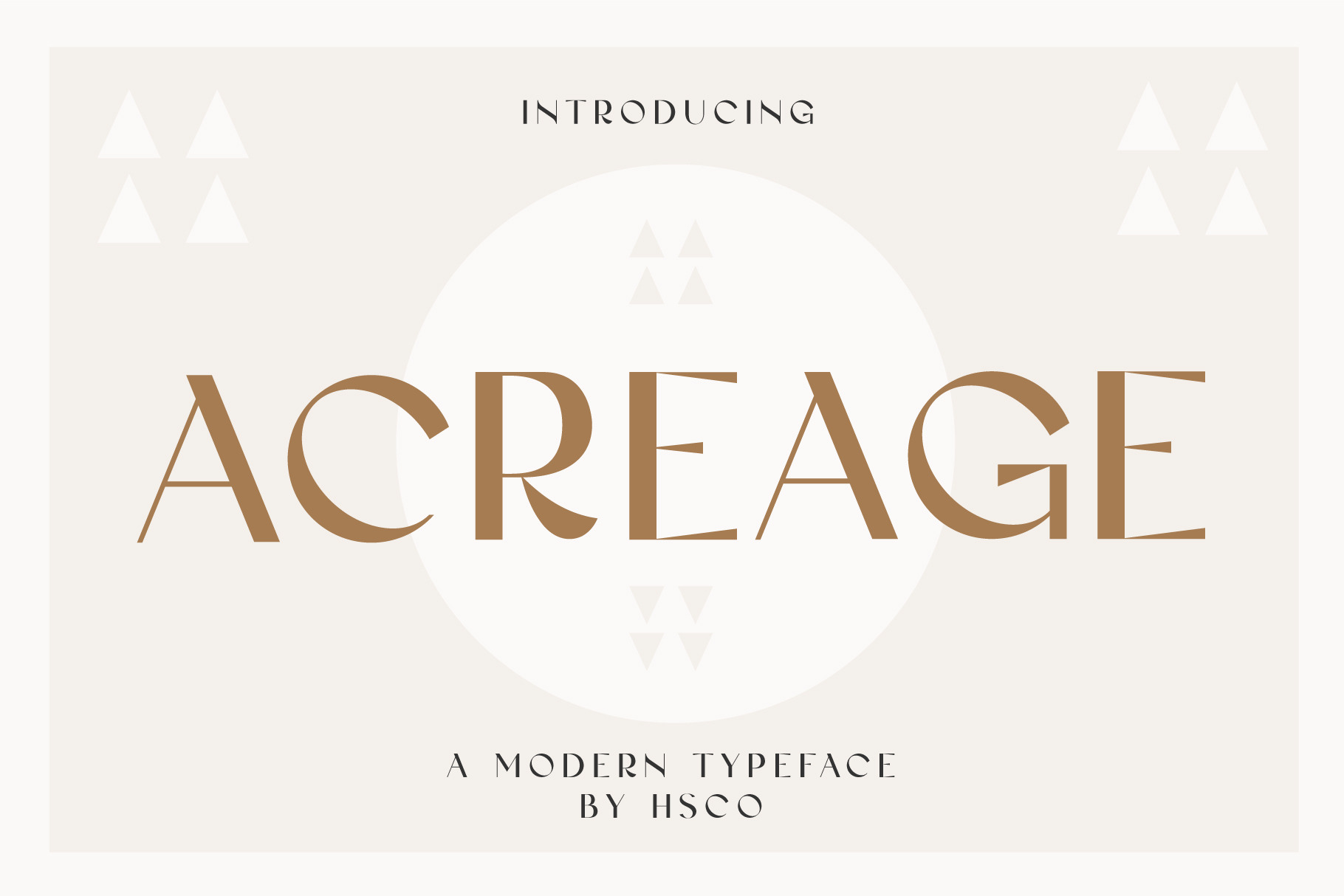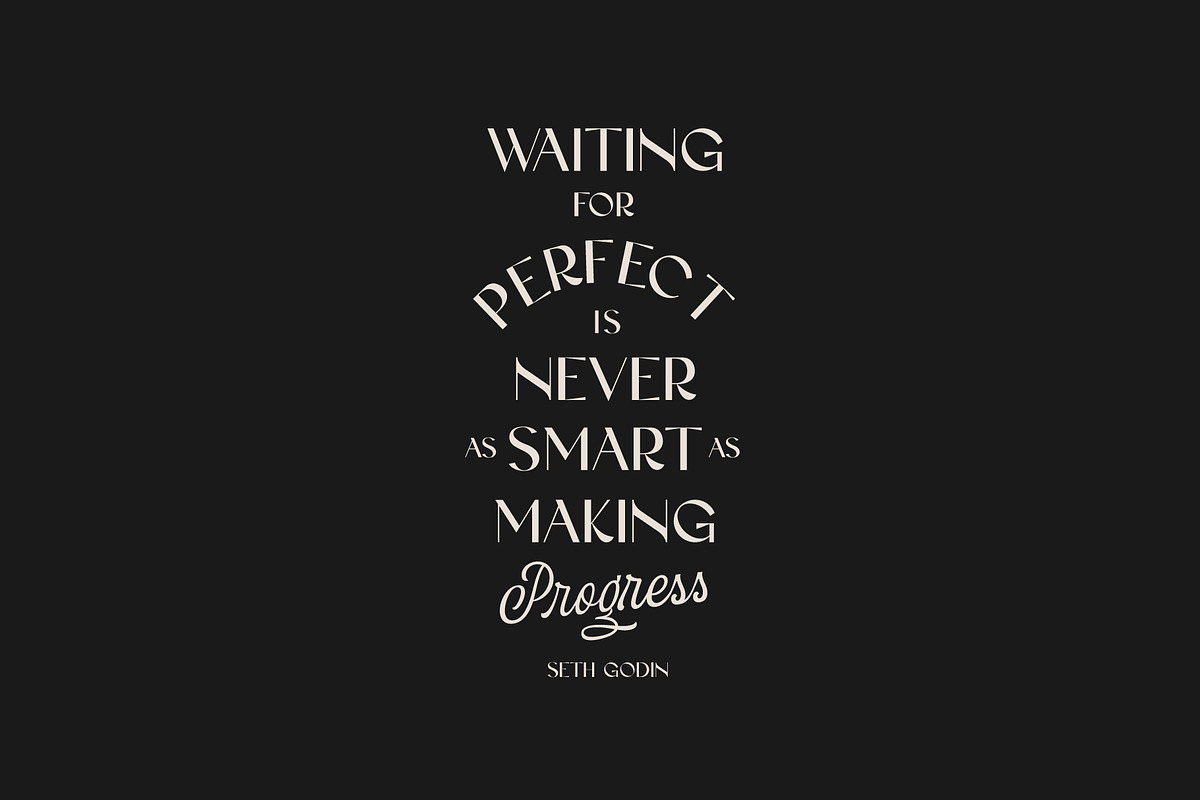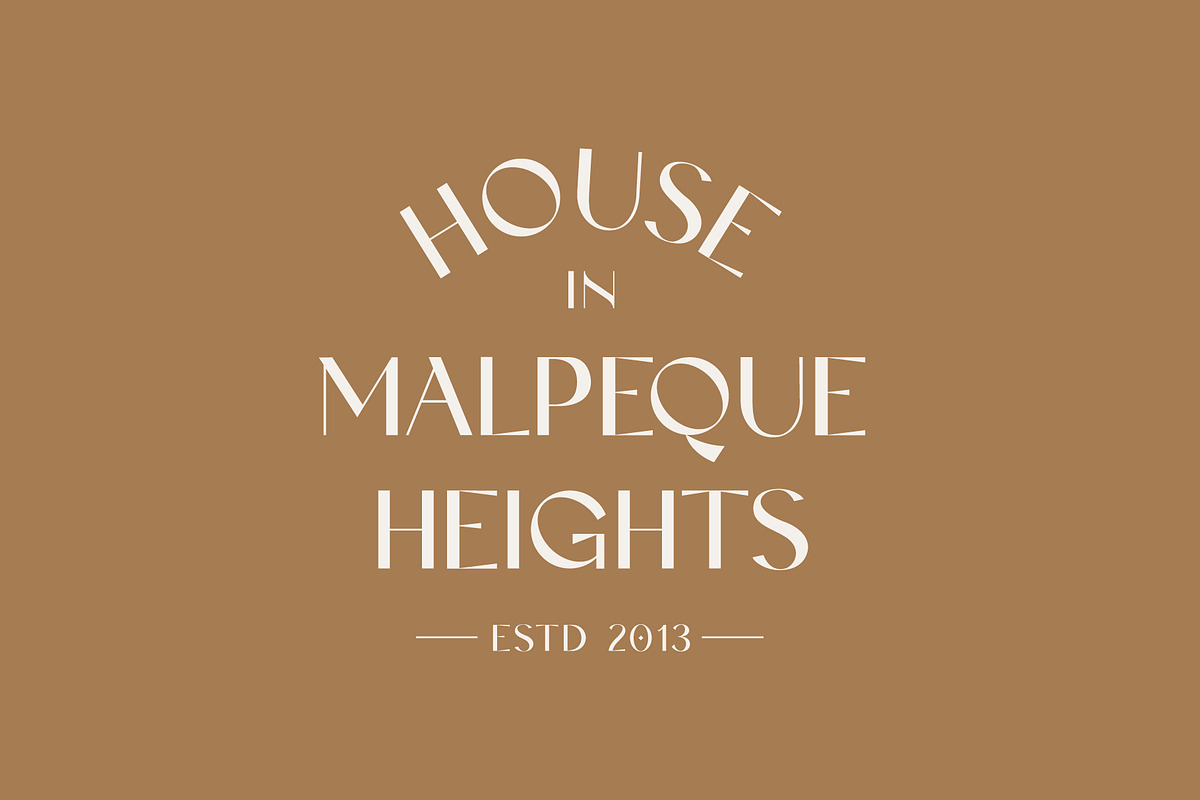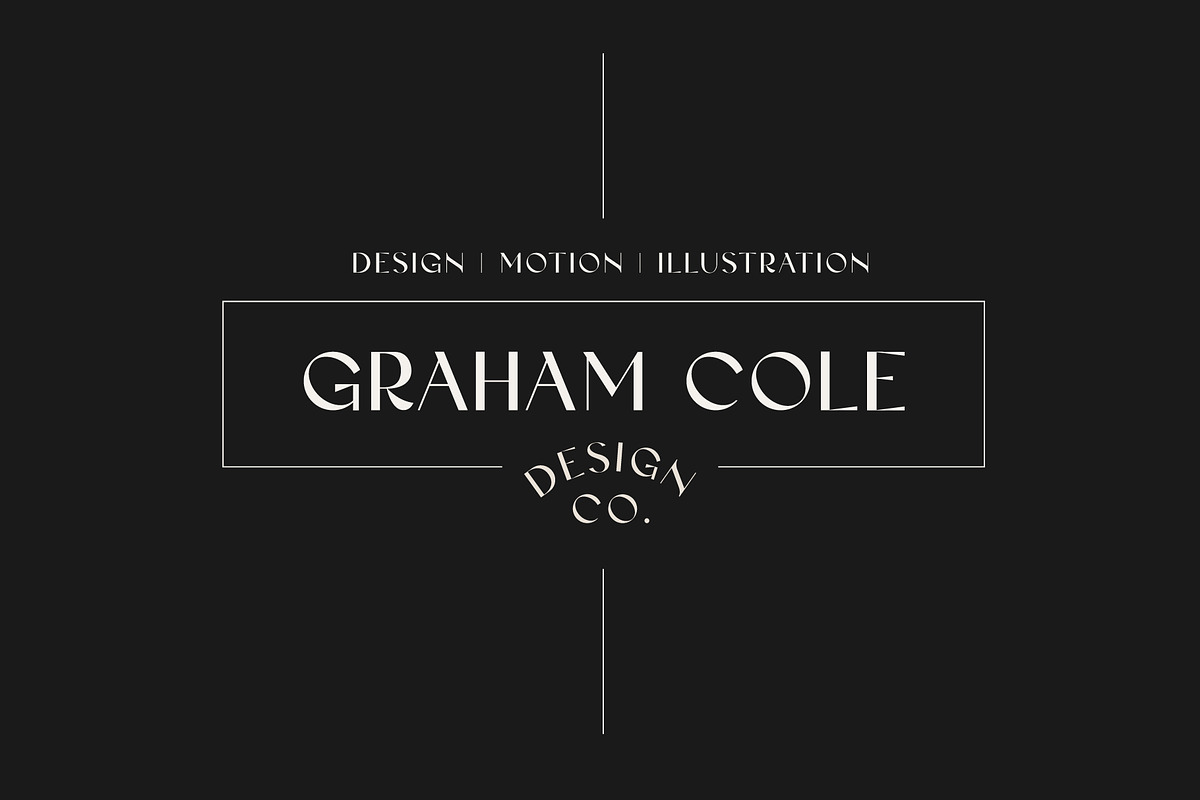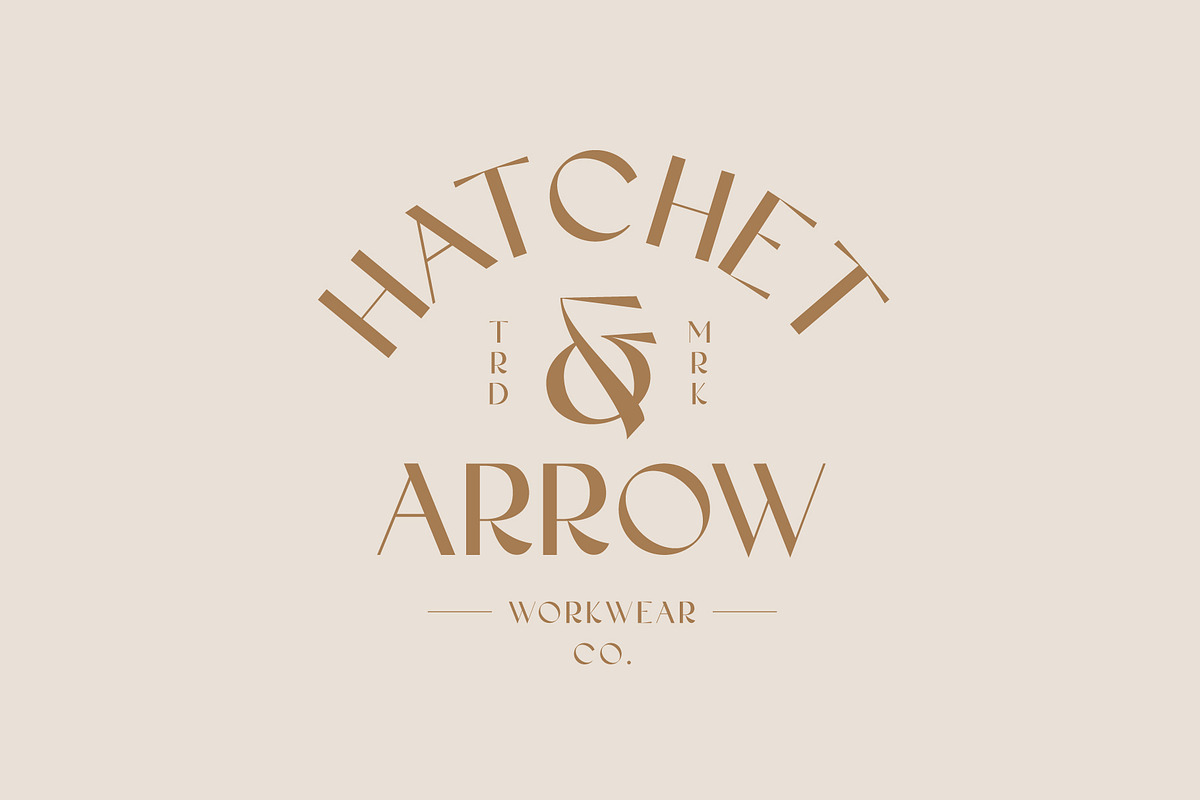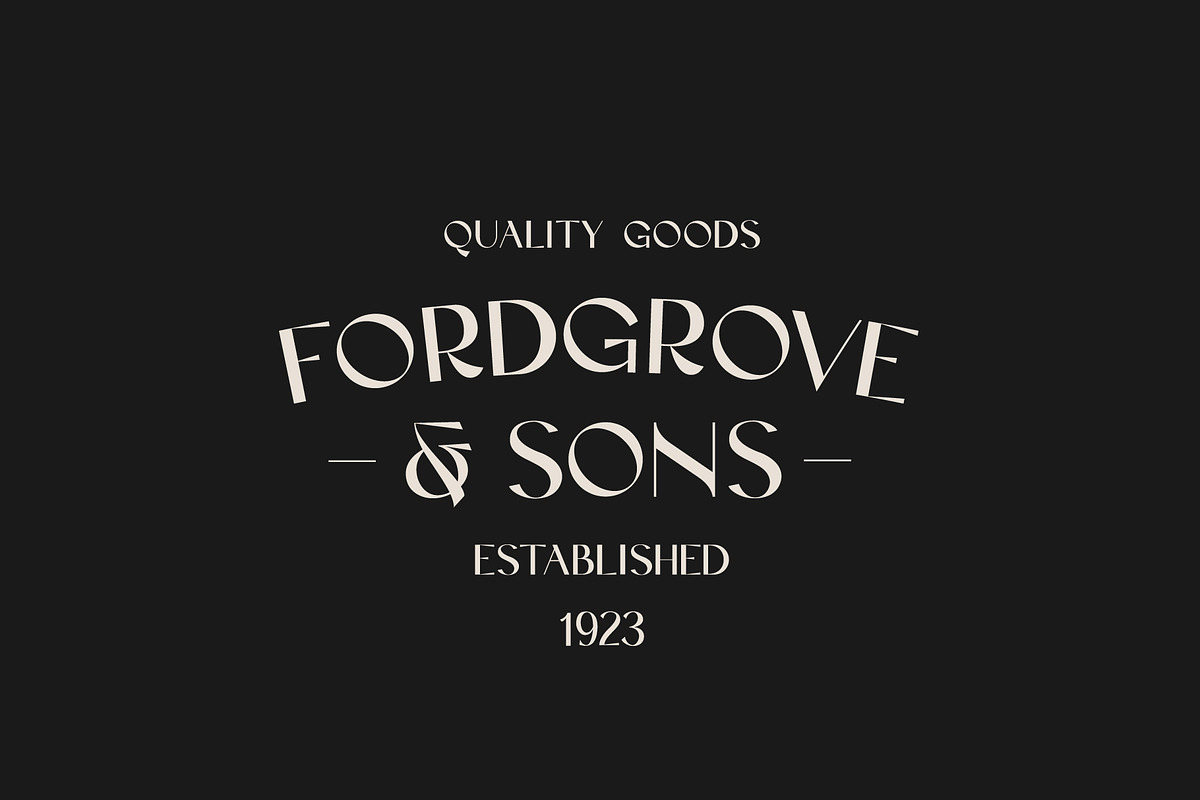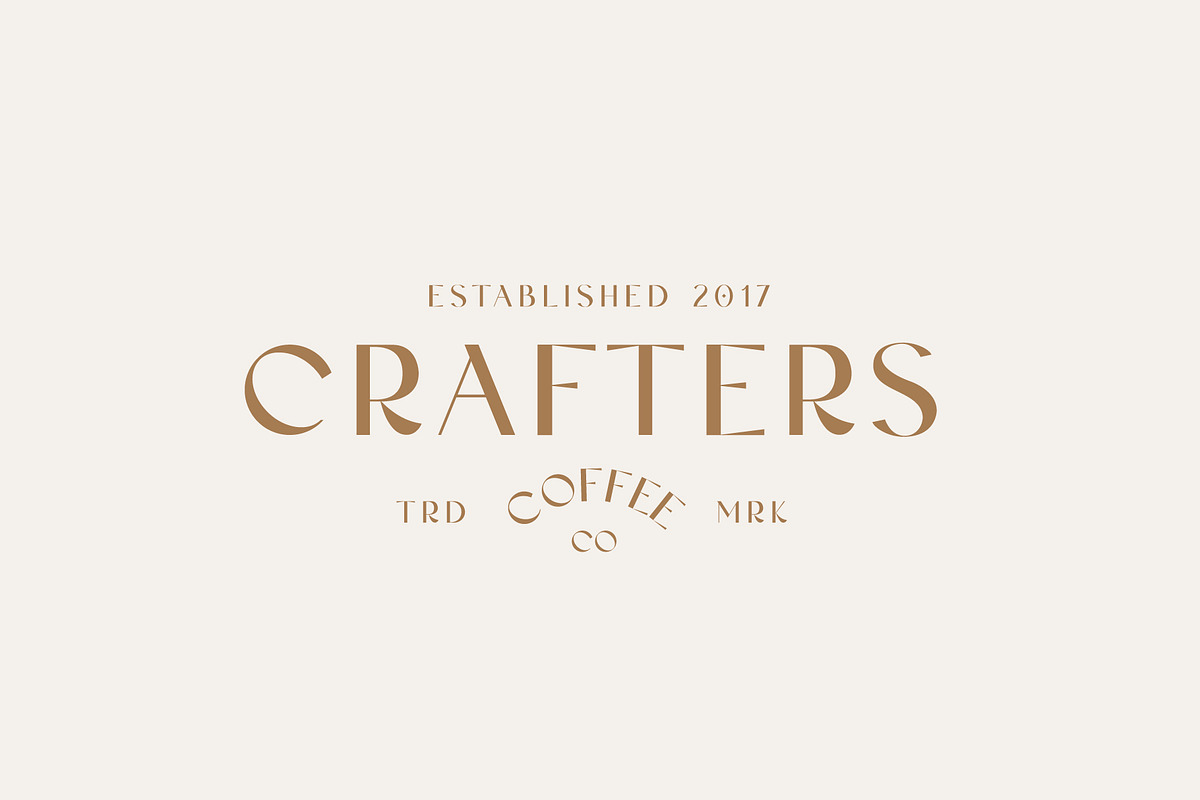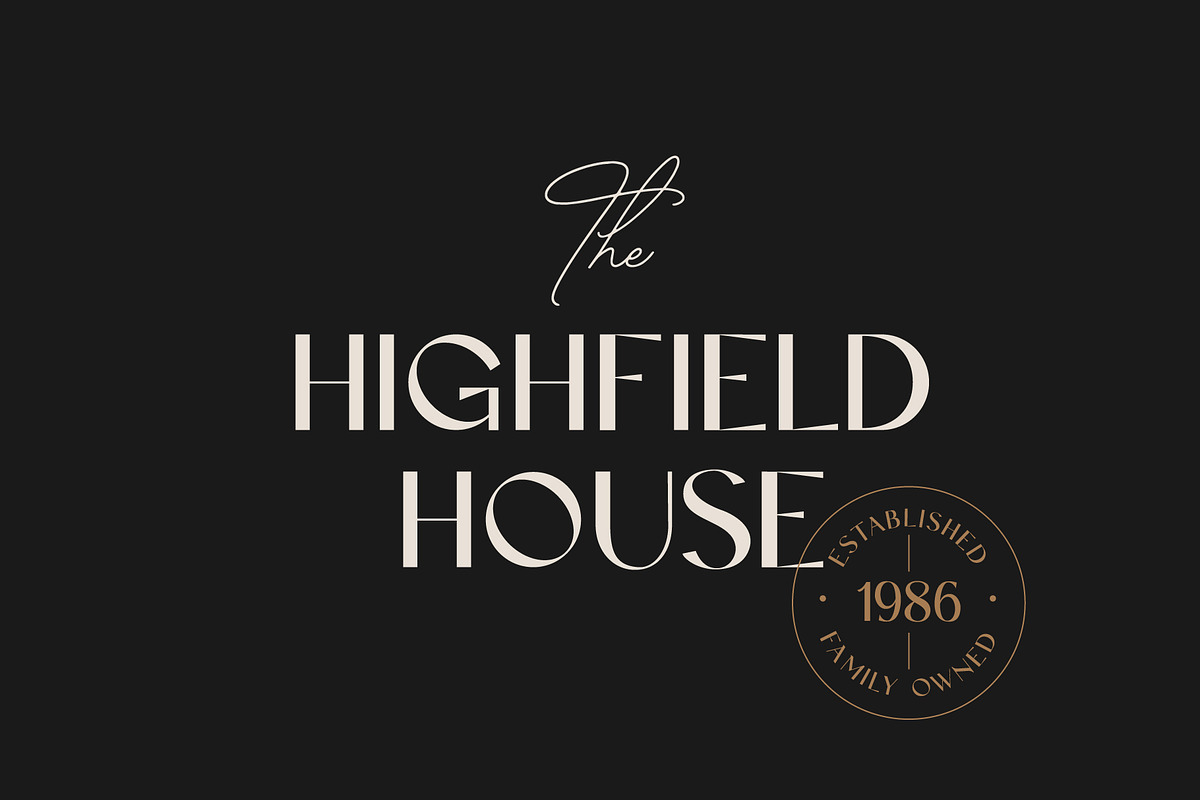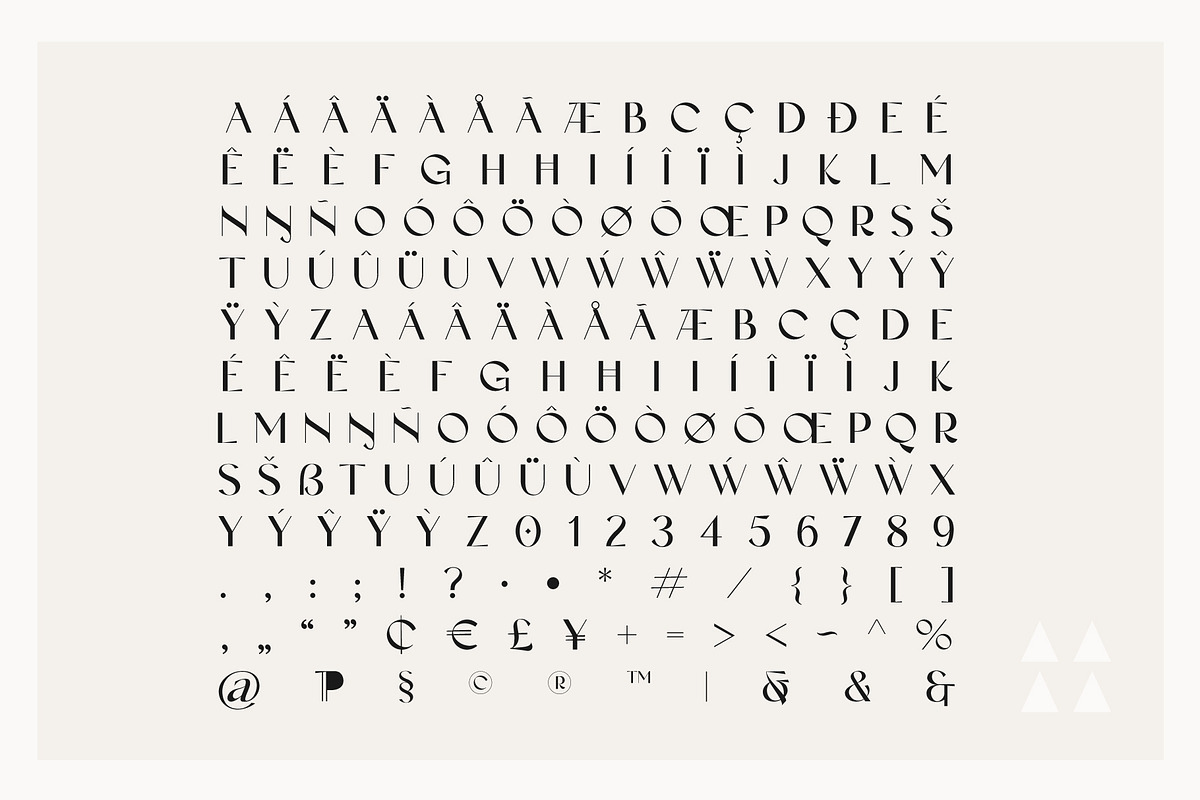
Acreage - A Modern Typeface
Acreage
Acreage is a stylish modern typeface with lots of character. Perfect for use in branding projects that are looking to add a little bit of modern elegance. Acreage comes equipped with 3 ampersands, a unique & attractive character set & Western European language support.